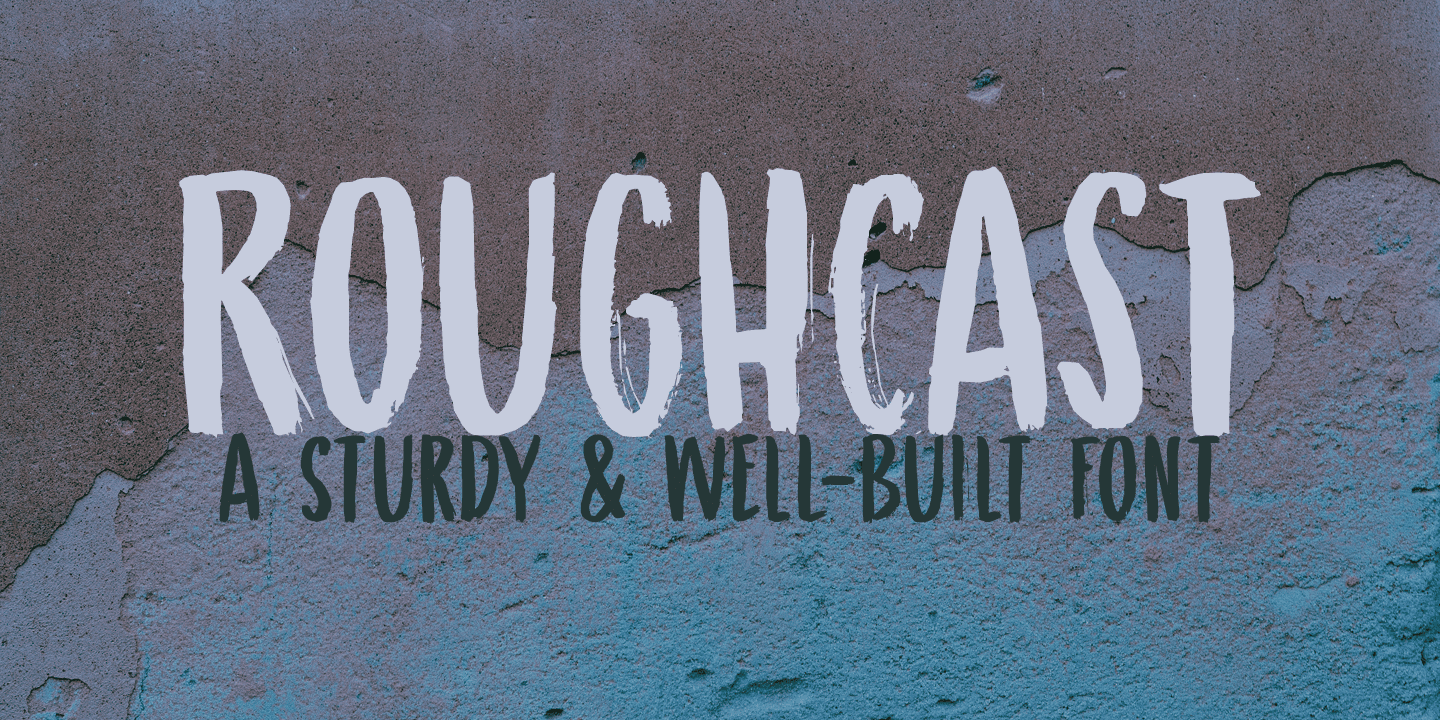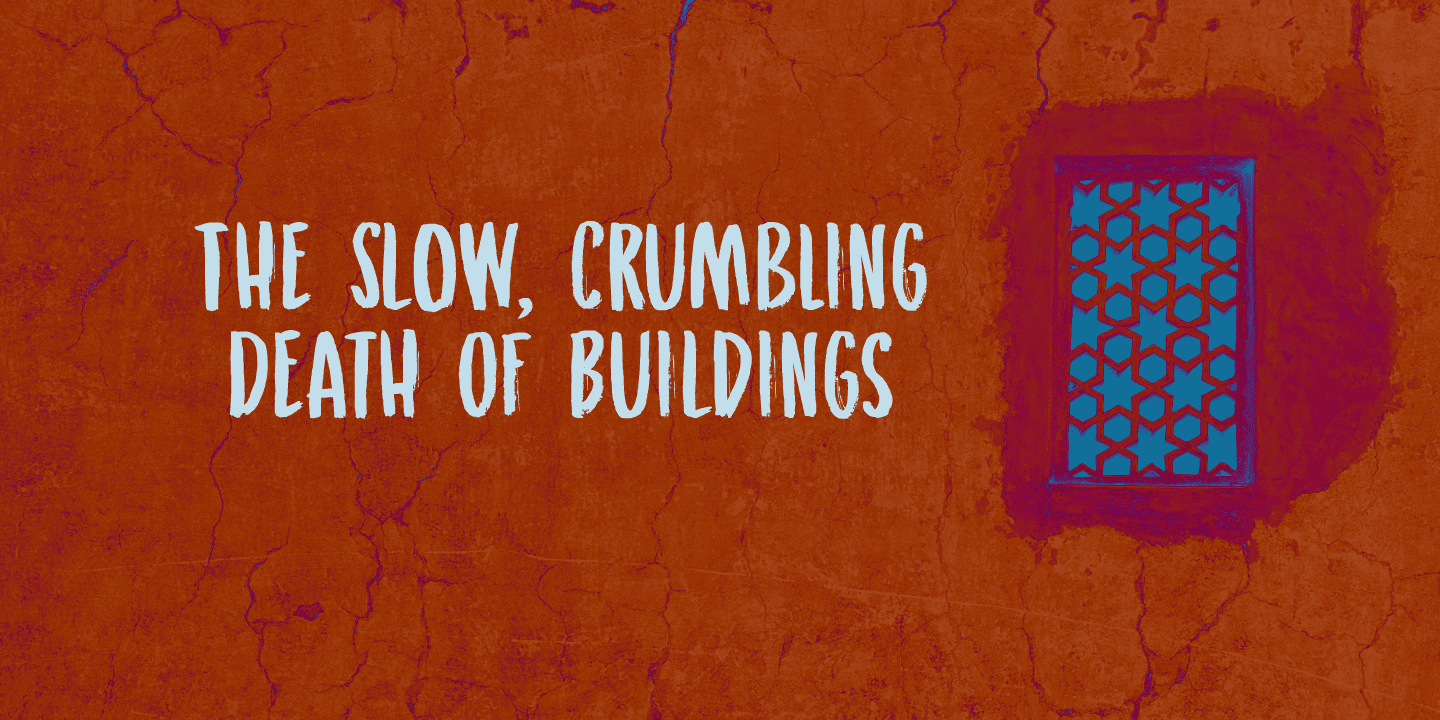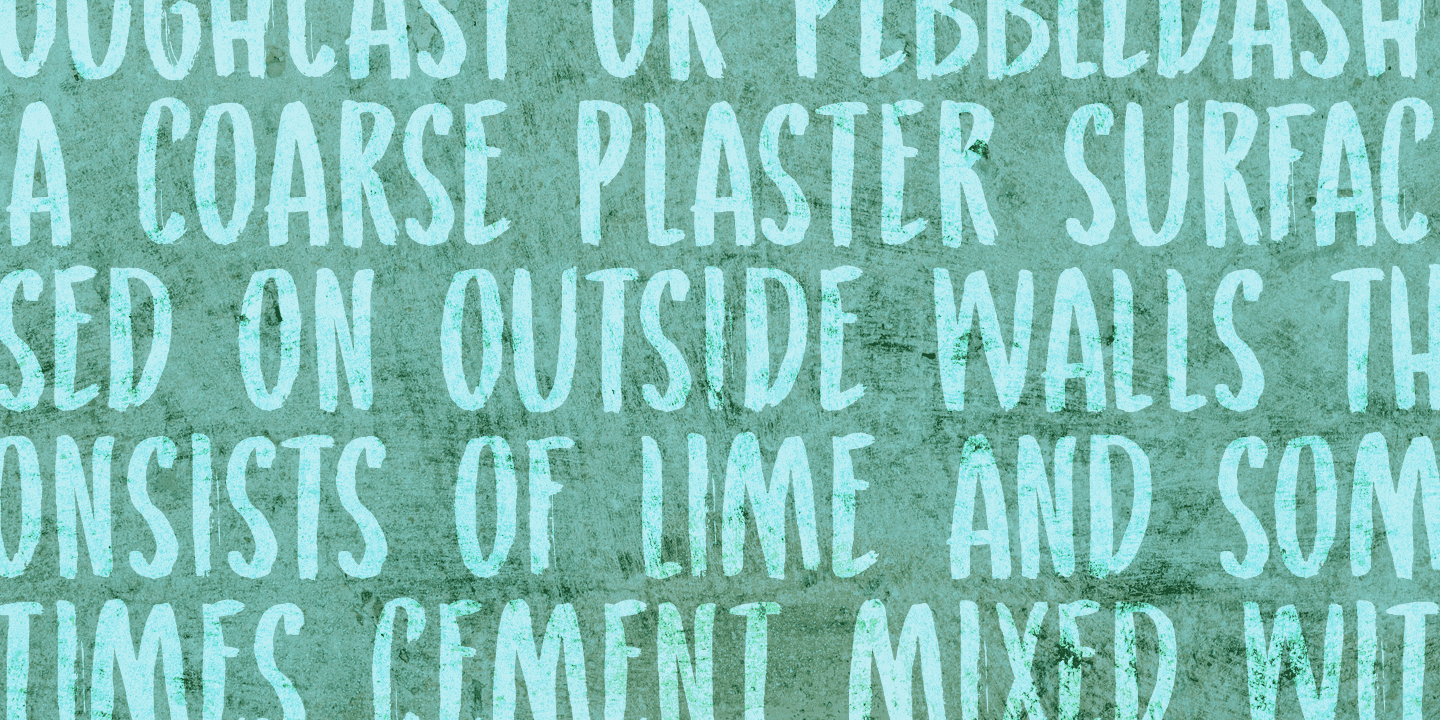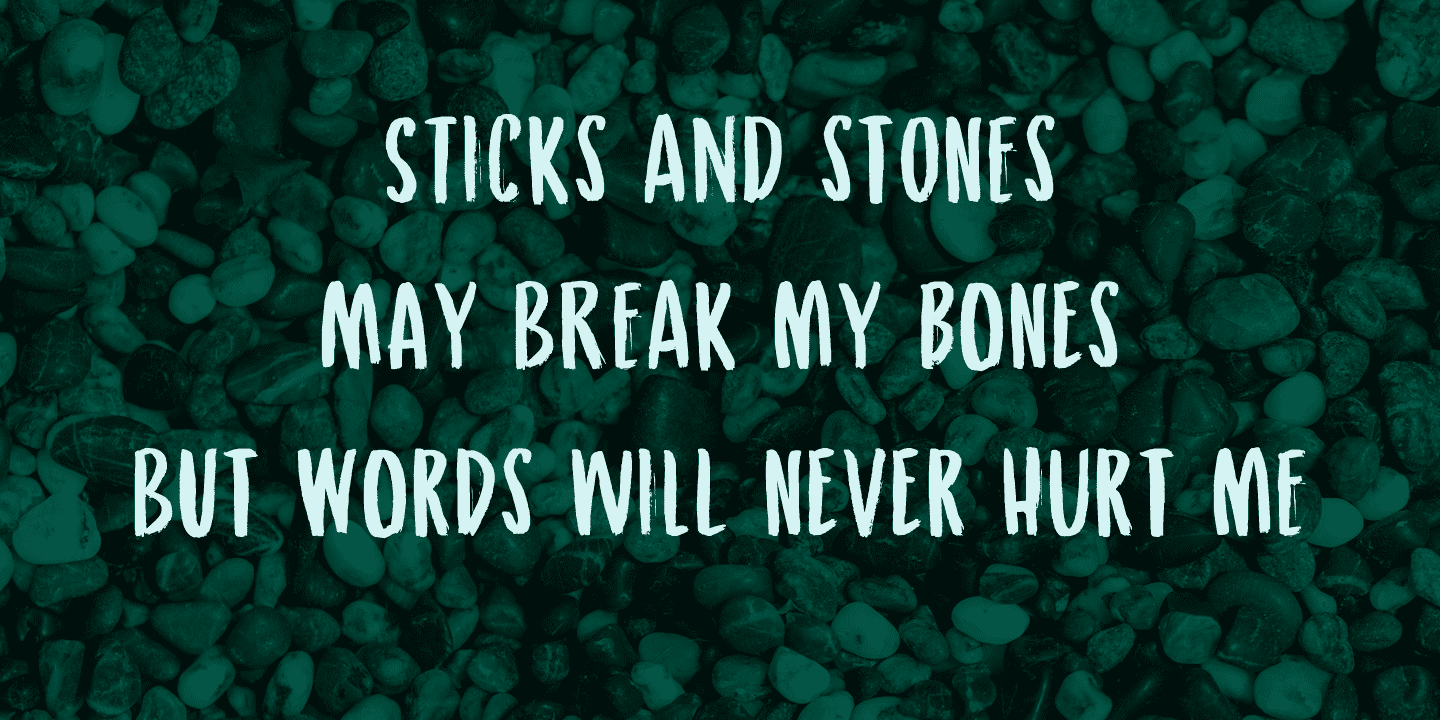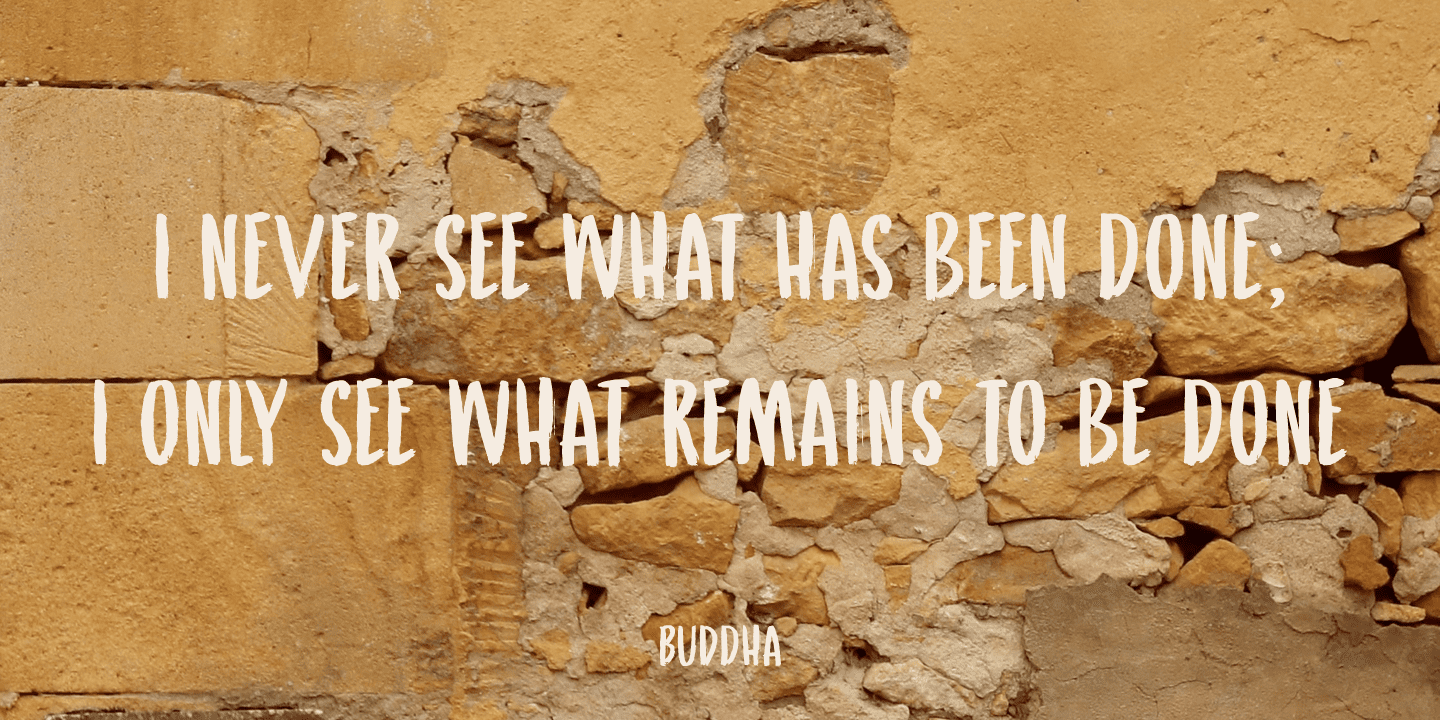
Roughcast Family (2 fonts)
I am in the middle of renovating our old farm, but I won’t cover it in roughcast!
Roughcast font is actually quite an attractive brush font. I made it with a brush I found hiding underneath my stove (where it had been for a while). I cleaned it and used it to make a couple of fonts, including Roughcast.
Roughcast is best used for packaging, book covers and posters.